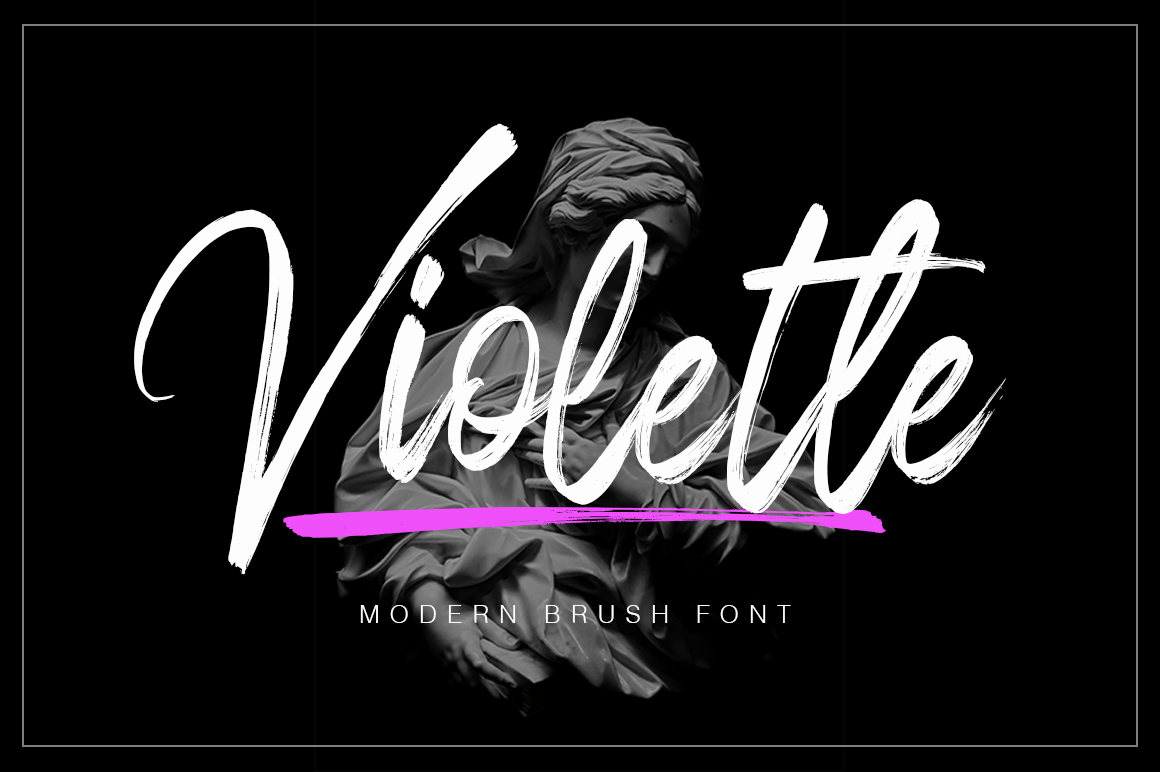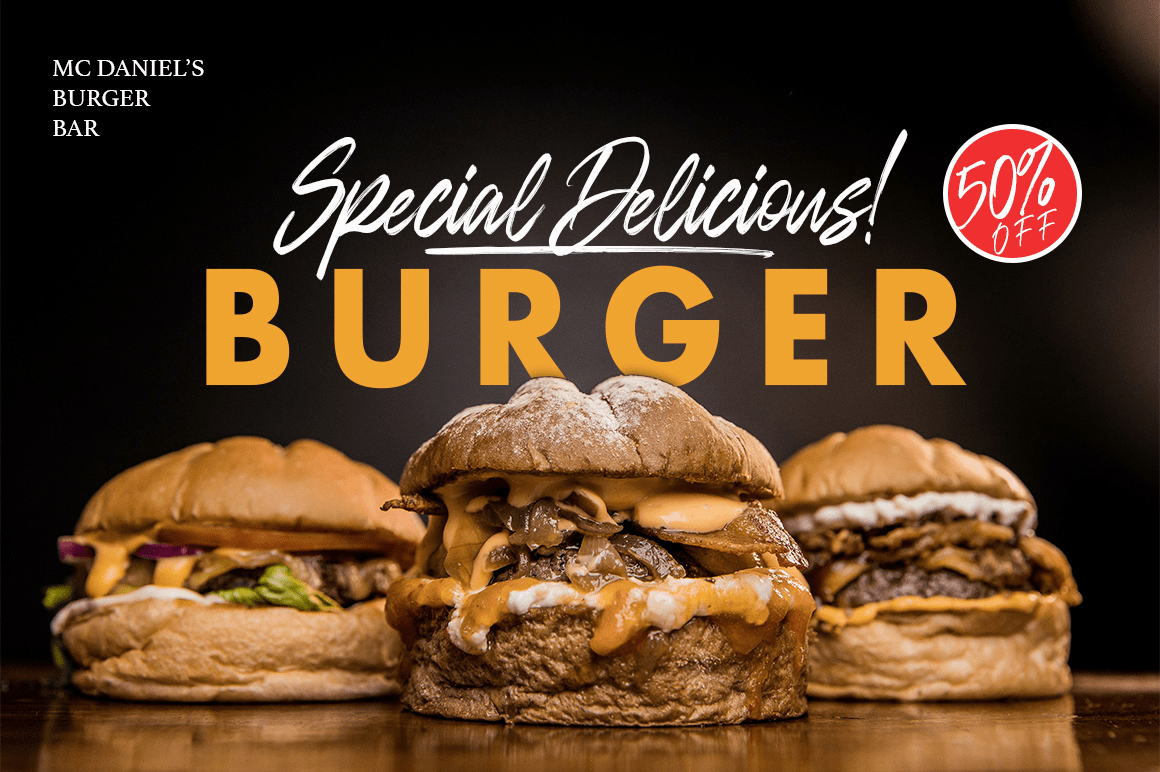
Violette Brush
Font Family by Fargun Studio
Introducing Violette Brush Font!!
Handwritten font with quick dry strokes and a signature style. perfect for branding projects, home ware designs, product packaging or simply as a stylish text overlay to any background image or posters.